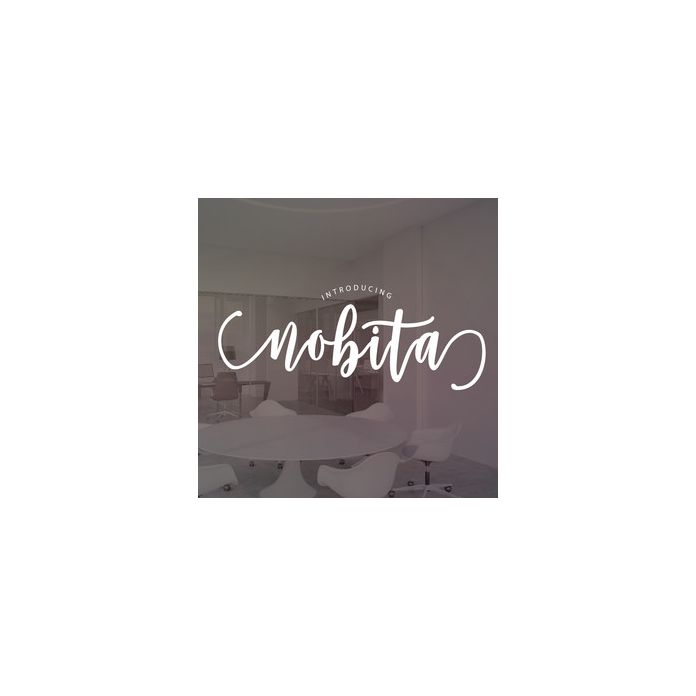
Nobita Script is natural and gentle font. This font is perfect for wedding invitations, parties, graduations, birthdays, gatherings, etc.
It contains a total of 328 characters including various punctuation, numbers, ligatures, Stylistic Set alternatives, and multilingual support.